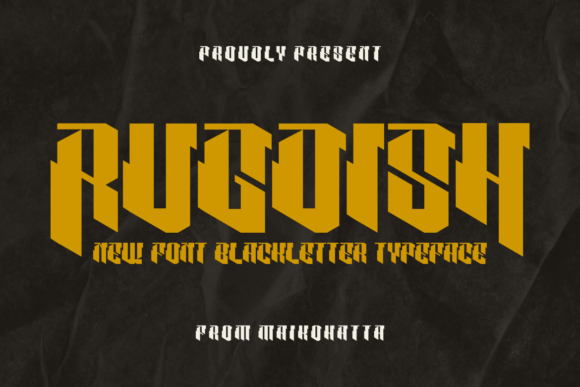
Journey into the realm of darkness and mystery with Rugdish Font, a blackletter font that will leave you spellbound. Its intricate details and sharp edges evoke a sense of intrigue and sophistication, making it the perfect choice for projects that demand a touch of the extraordinary.
Unleash your creativity with Rugdish Font, a captivating font that exudes a timeless charm. Its distinct design adds a touch of elegance to any project, whether it's a retro-urban design, a tattoo business branding, or a vintage masterpiece. The possibilities are endless with Rugdish Font, allowing you to craft designs that resonate with individuality and style.
Step into the world of exquisite typography with Rugdish Font, a PUA-encoded font that grants you access to a treasure trove of glyphs and ligatures. Unleash your imagination and create designs that captivate and enchant, leaving a lasting impression on your audience.
With Rugdish Font, your designs will transcend the ordinary and enter the realm of the extraordinary. Its unique aesthetic and versatile nature make it the ultimate choice for designers seeking to make a statement. Embrace the darkness and let Rugdish Font guide you towards creative greatness.